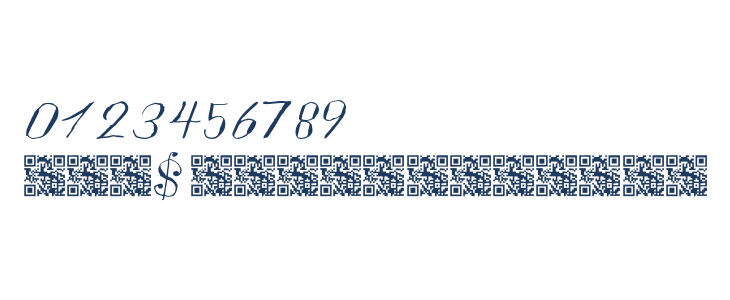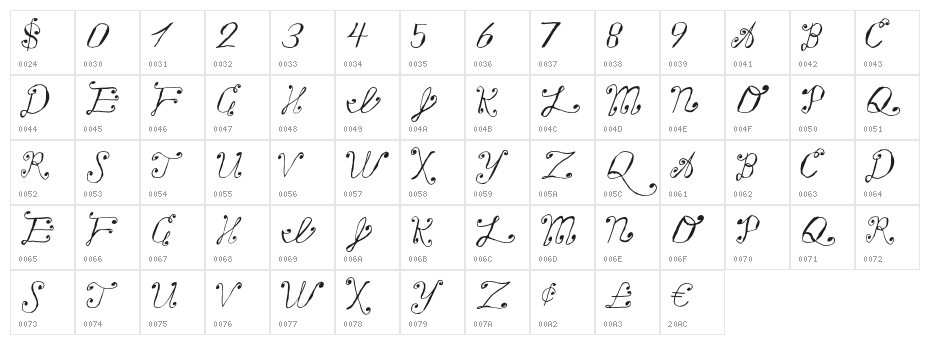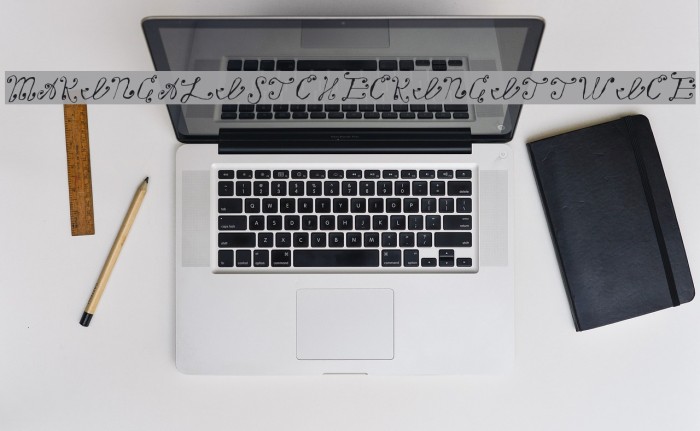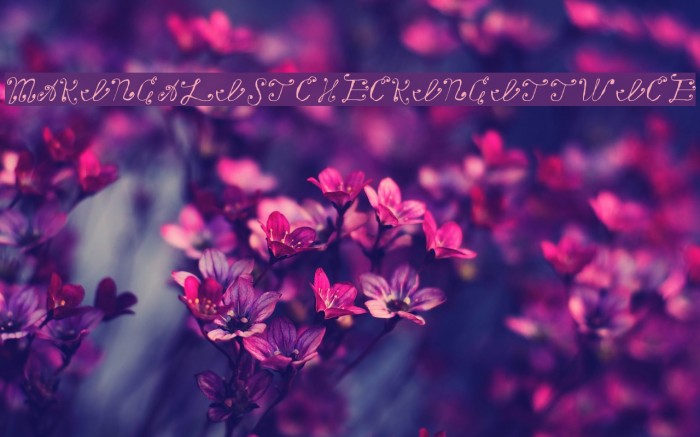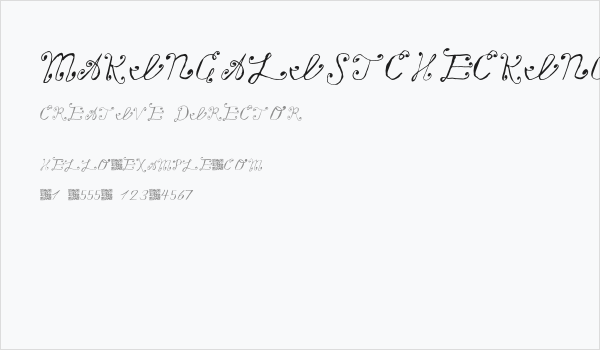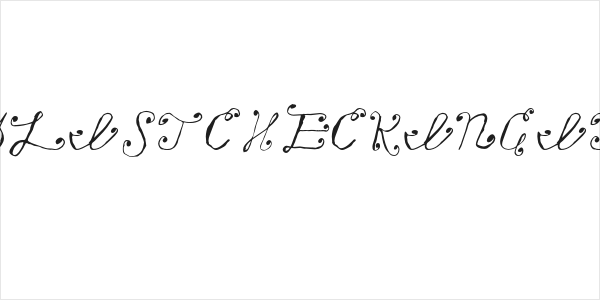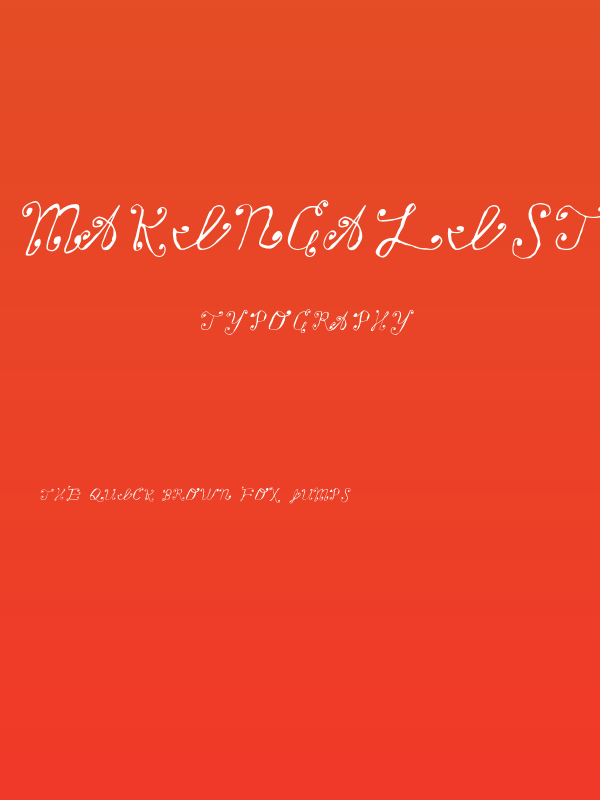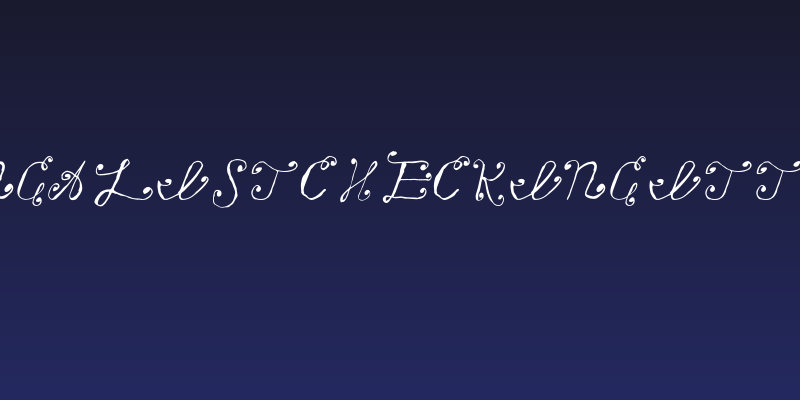
MakingaListCheckingItTwice Font
MakingaListCheckingItTwice Description
This font features an elegant and whimsical script style with decorative flourishes. Each character is adorned with unique, curly embellishments that add a playful and artistic touch. The uppercase letters are particularly ornate, with loops and swirls that extend beyond the basic letterforms. The lowercase letters maintain a consistent style, offering a harmonious blend of simplicity and decoration. The numerals are bold and slightly italicized, providing a dynamic contrast to the more delicate letters. Special characters are included, maintaining the same decorative theme. This font is perfect for projects that require a touch of elegance and creativity.
Use CaseLogos, Invitations, Artistic projects
Proposed ProjectsIdeal for wedding invitations, greeting cards, branding, and artistic projects that require a touch of elegance.